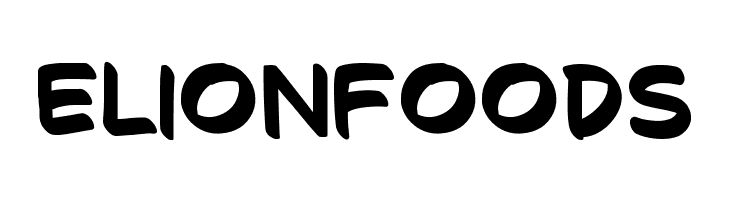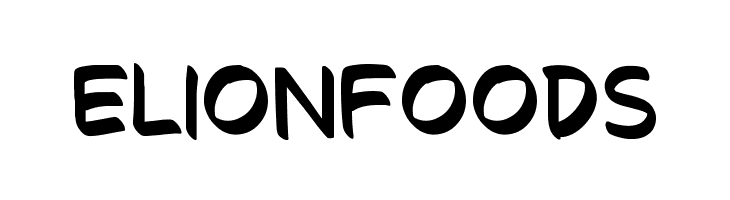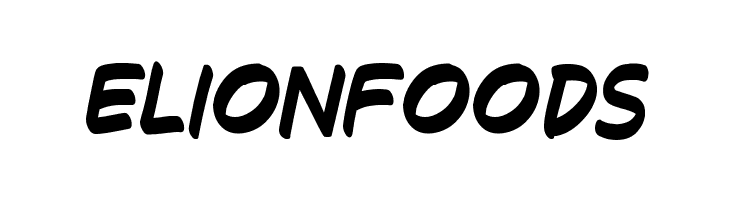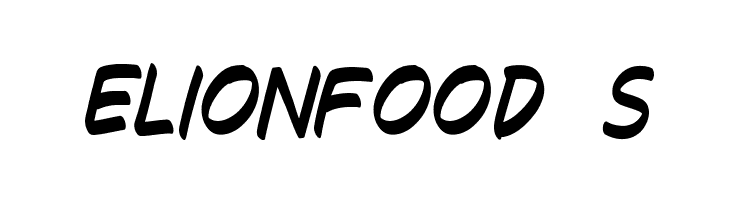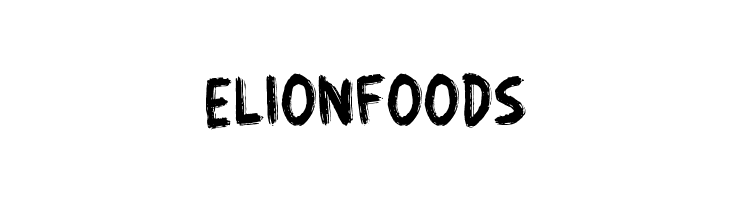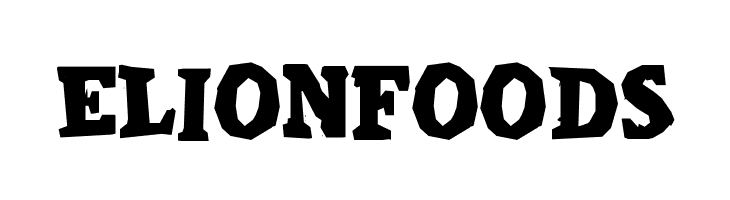
A playful, hand-drawn font with tall, narrow characters and a casual vibe.
A bold, rugged font with thick strokes and a hand-crafted appearance.
A bold, playful font with rounded, thick strokes and a comic book style.
A bold, italic, handwritten-style font with a playful and dynamic appearance.
A playful, handwritten italic font with a comic book style.
A bold, playful font with a hand-drawn, artistic style.
A playful, bold handwritten font with rounded strokes and an informal style.
A bold, italicized handwritten font with thick strokes and a dynamic feel.
A bold, italicized handwritten font with a dynamic and casual style.
A bold, brushstroke-style font with a dynamic, hand-painted appearance.
A bold, italicized font with a playful and dynamic style.
A playful, hand-drawn font with tall, narrow characters and a whimsical style.
A playful, handwritten font with a slight slant and consistent stroke width.
A bold, brush-style font with an energetic and dynamic appearance.